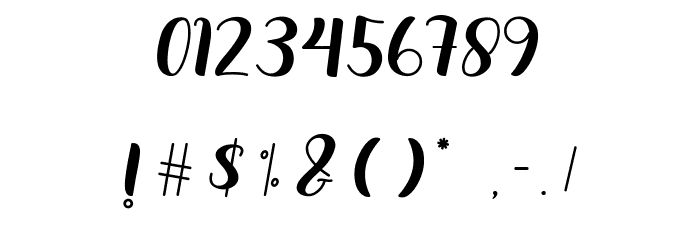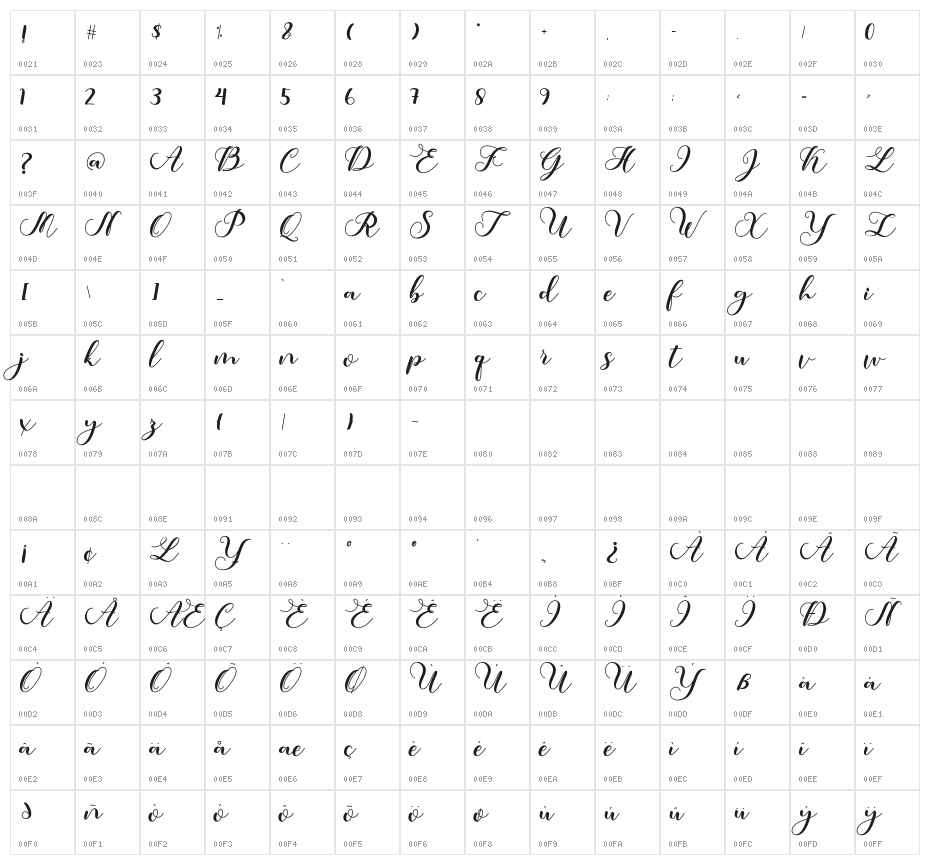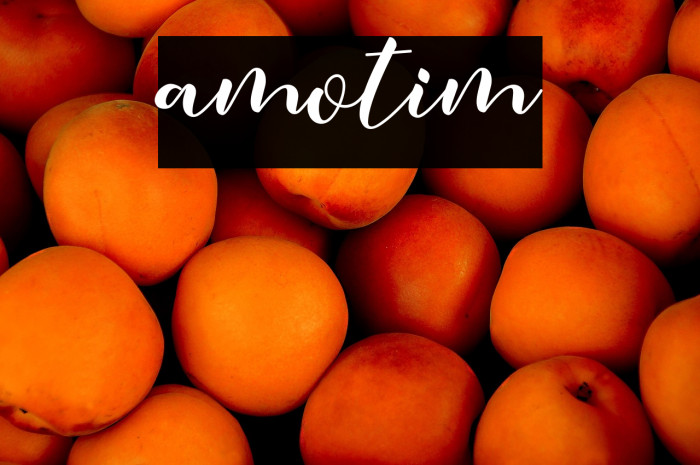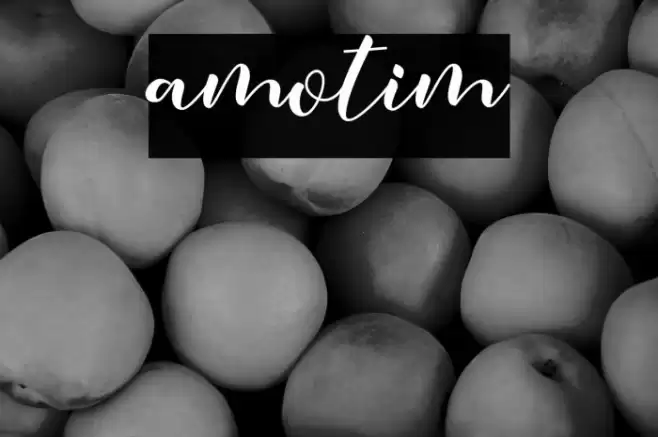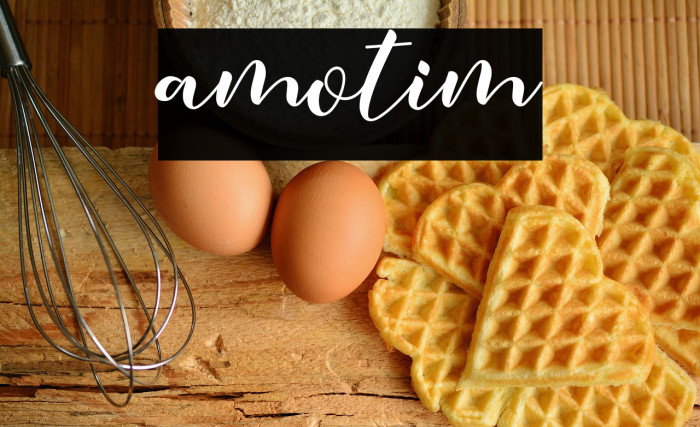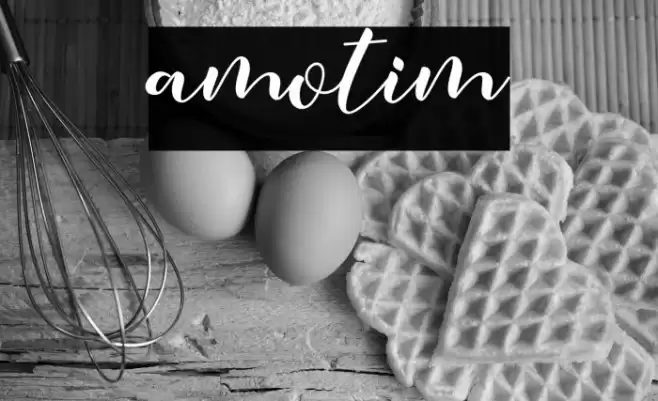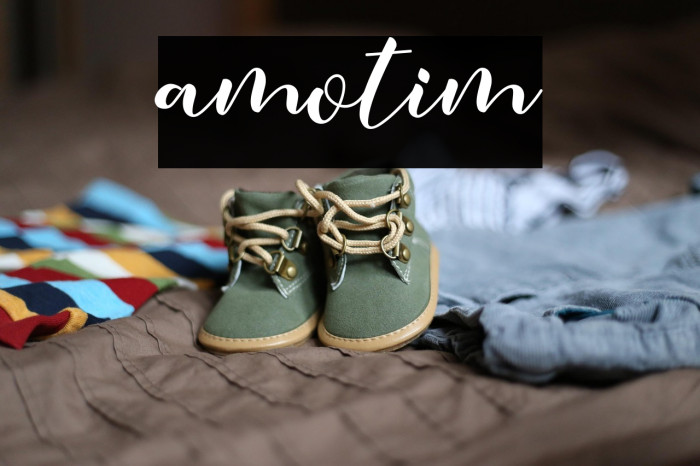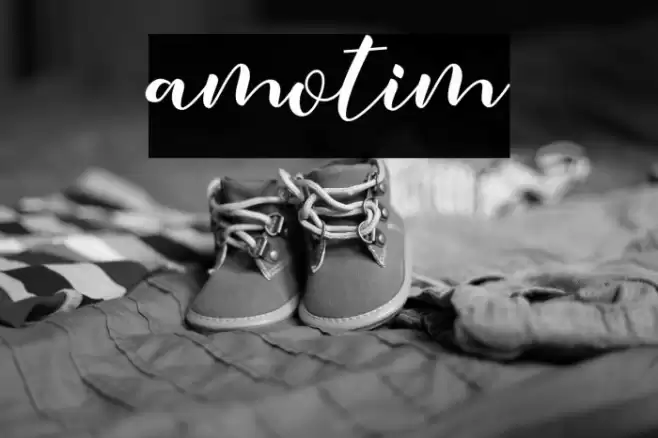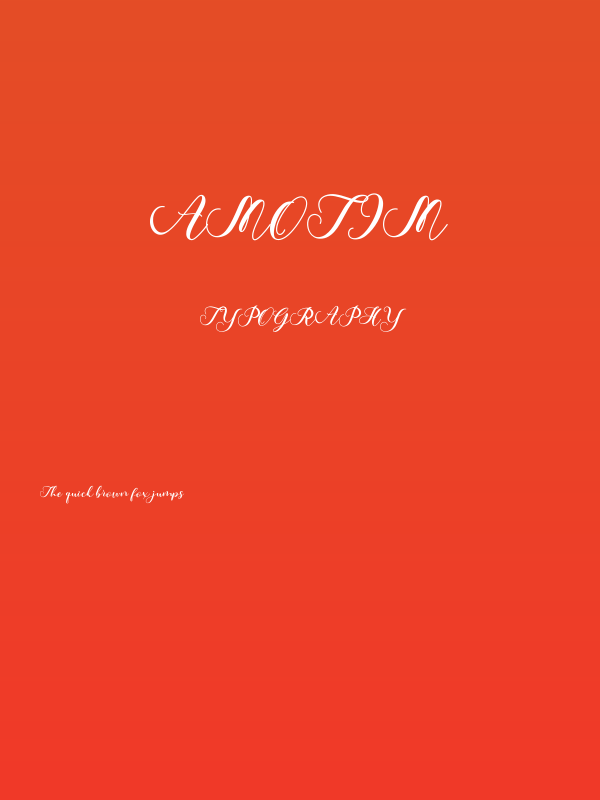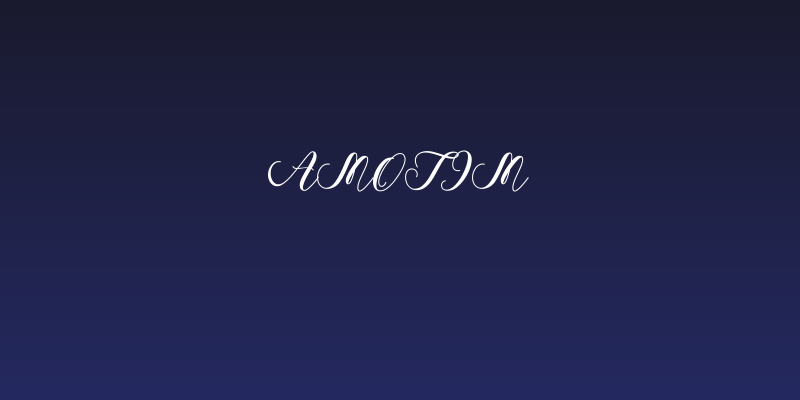
amotim Font
amotim Description
This elegant script font features flowing, cursive letters with a sophisticated and artistic flair. The uppercase characters are ornate and decorative, with intricate loops and swirls that add a touch of luxury and refinement. The lowercase letters maintain a consistent style, offering a smooth and fluid appearance that enhances readability while retaining an artistic touch. The numerals are clear and stylish, complementing the overall aesthetic of the font. Special characters are thoughtfully designed to match the elegance of the alphabet, making this font suitable for a wide range of creative applications.
Overall StyleElegant
Use CaseLogos, Invitations, Decorative text
Proposed ProjectsIdeal for wedding invitations, luxury branding, elegant stationery, and artistic posters.